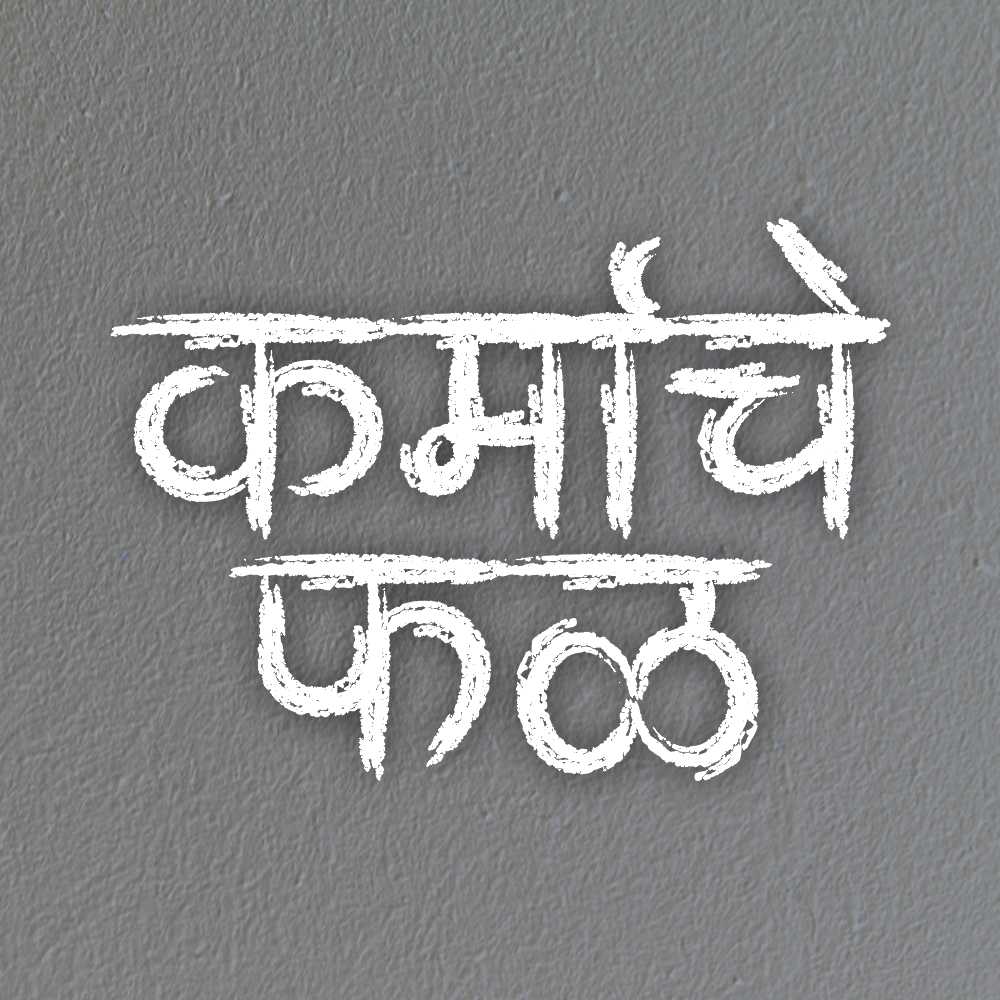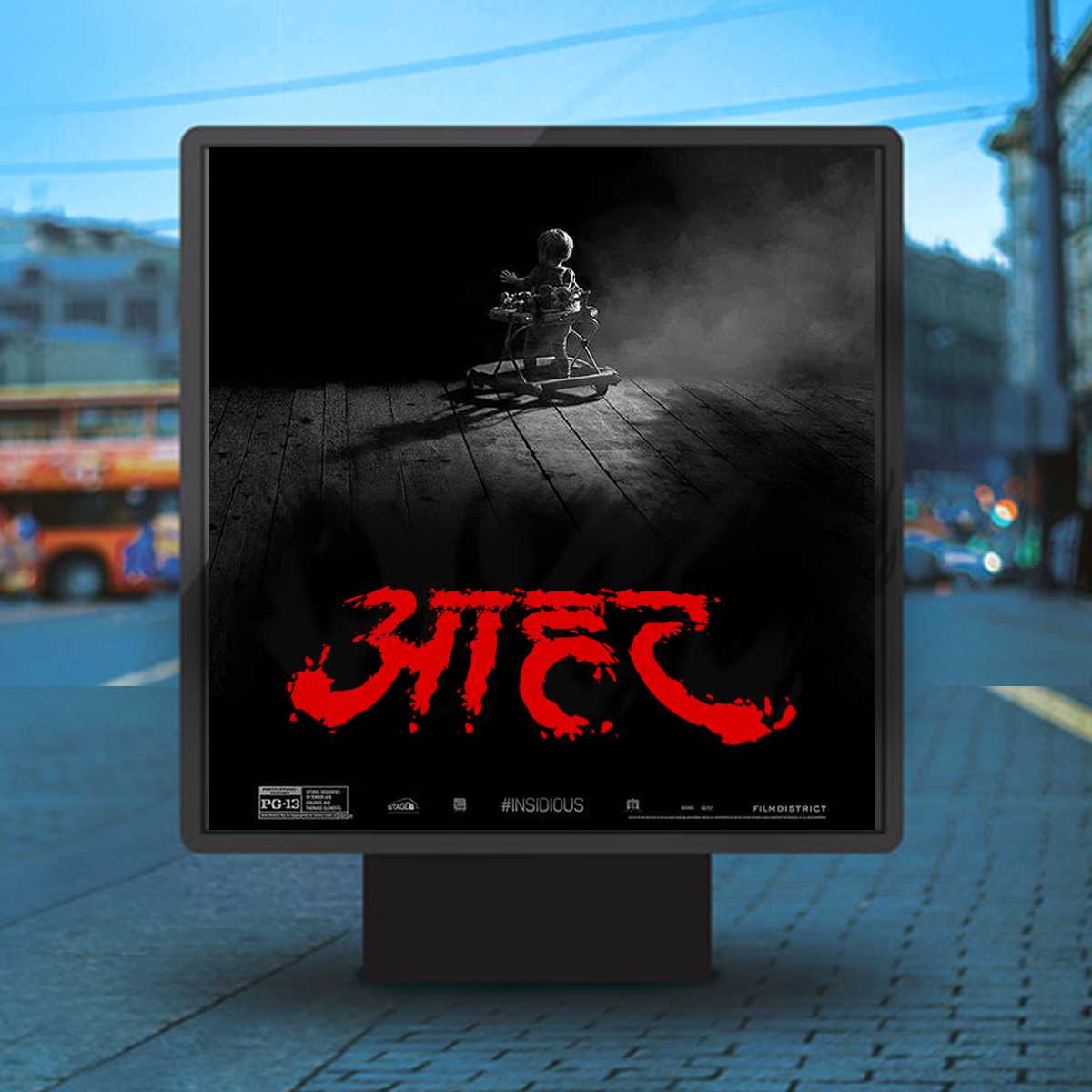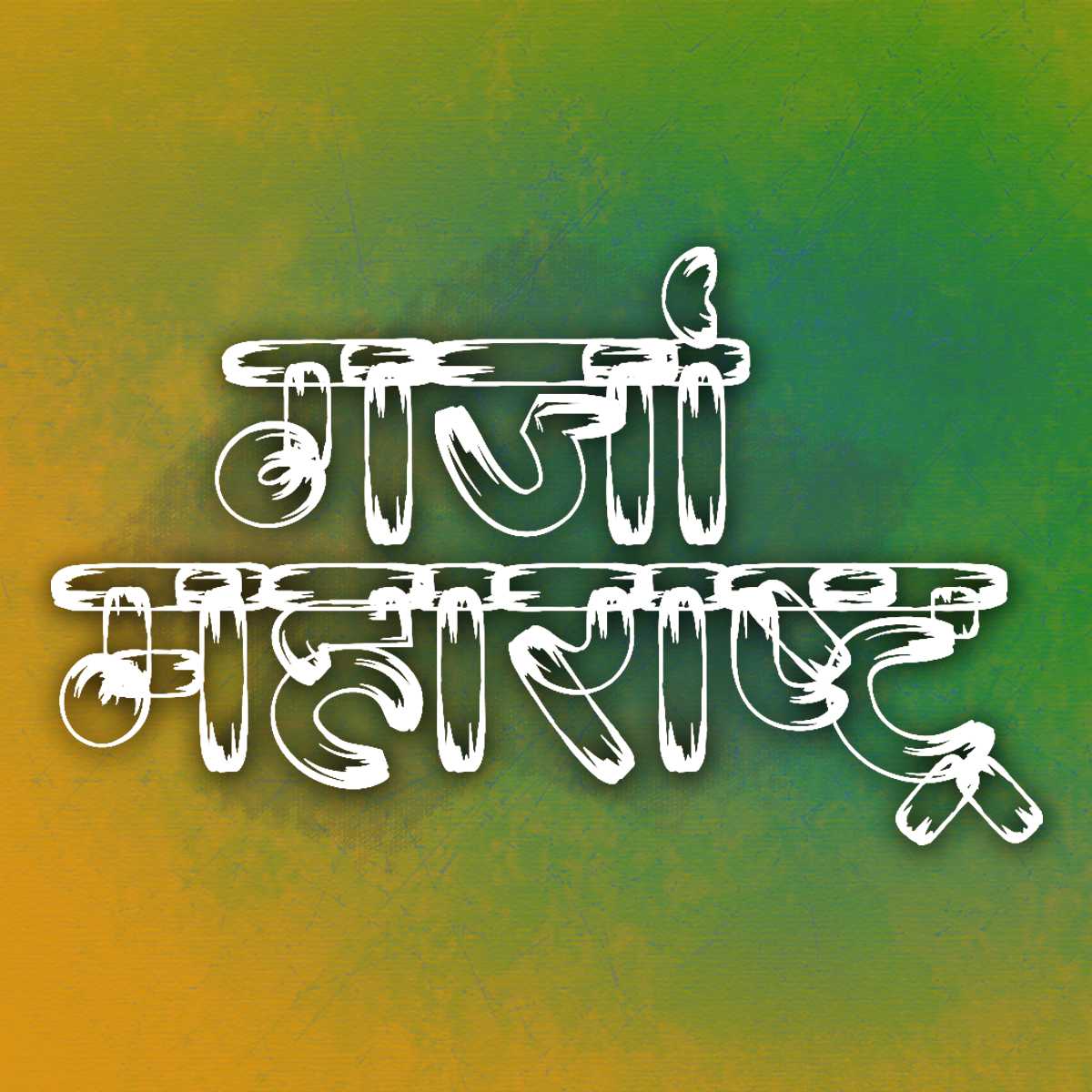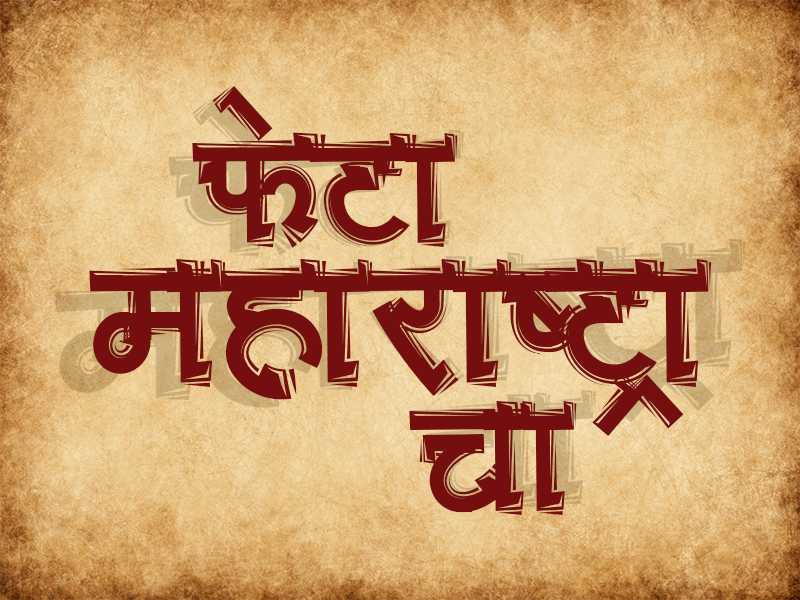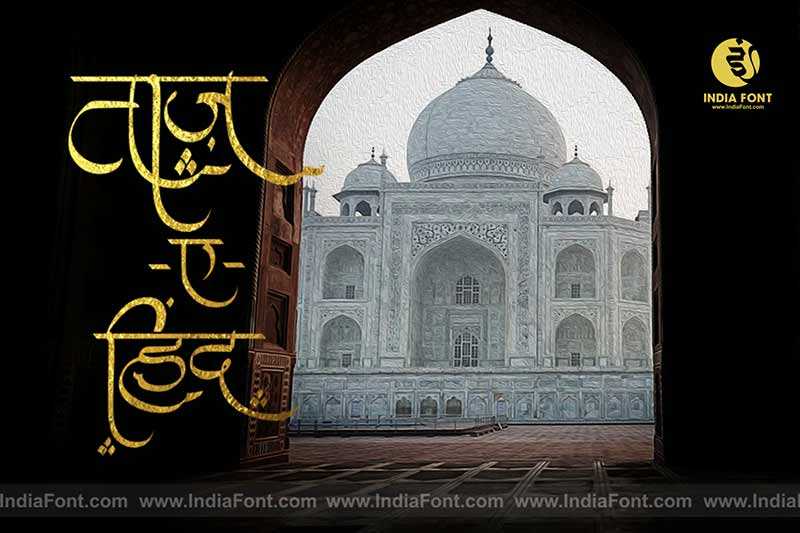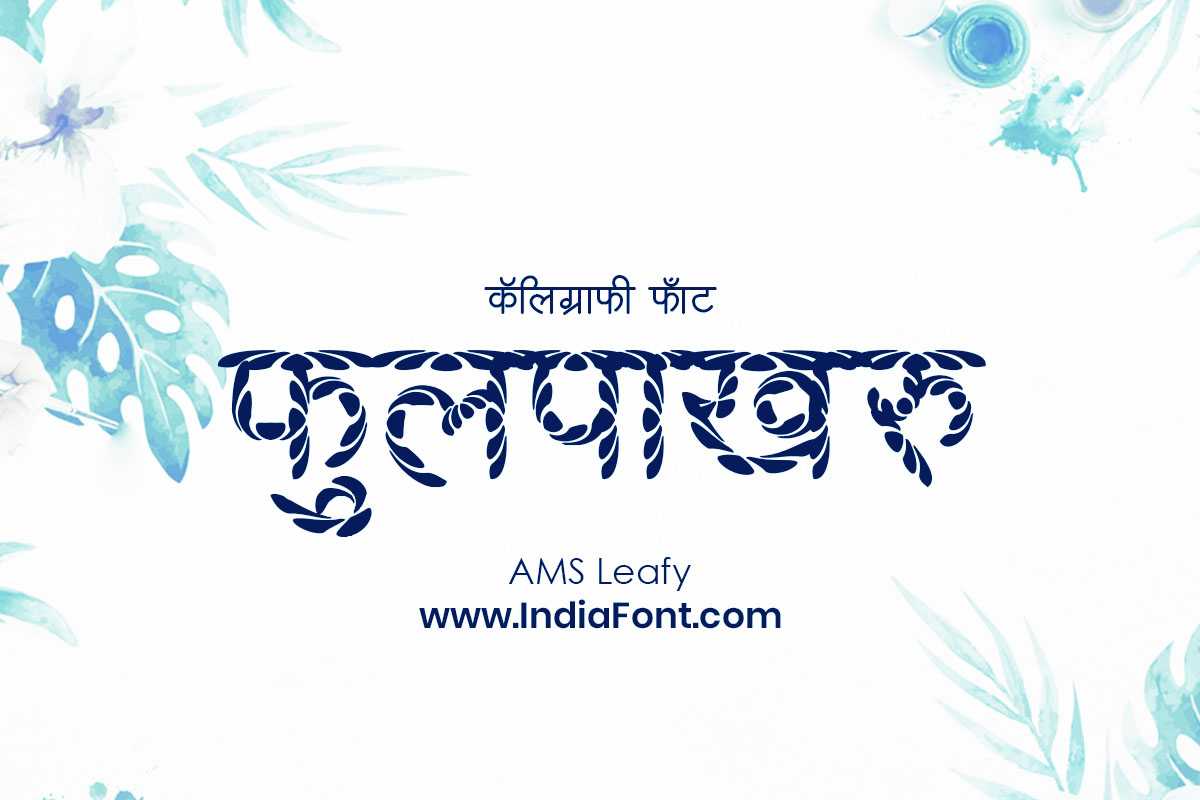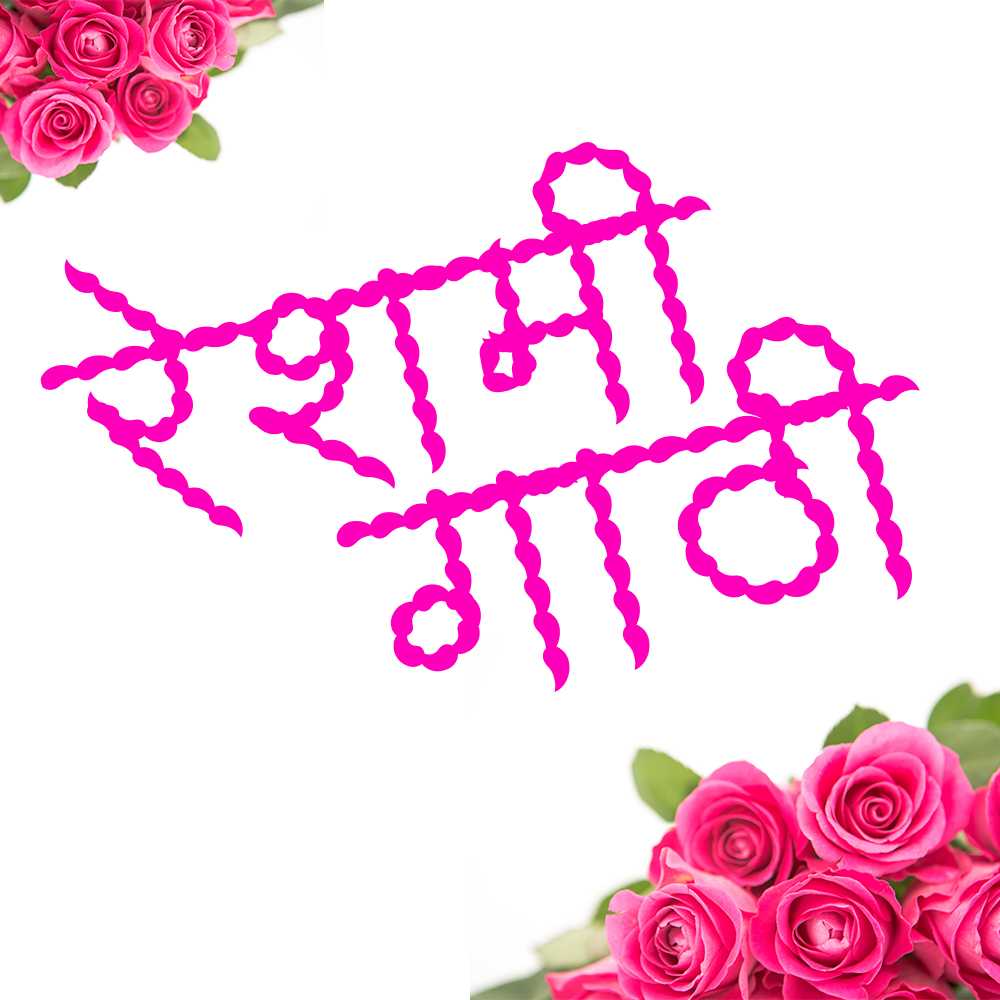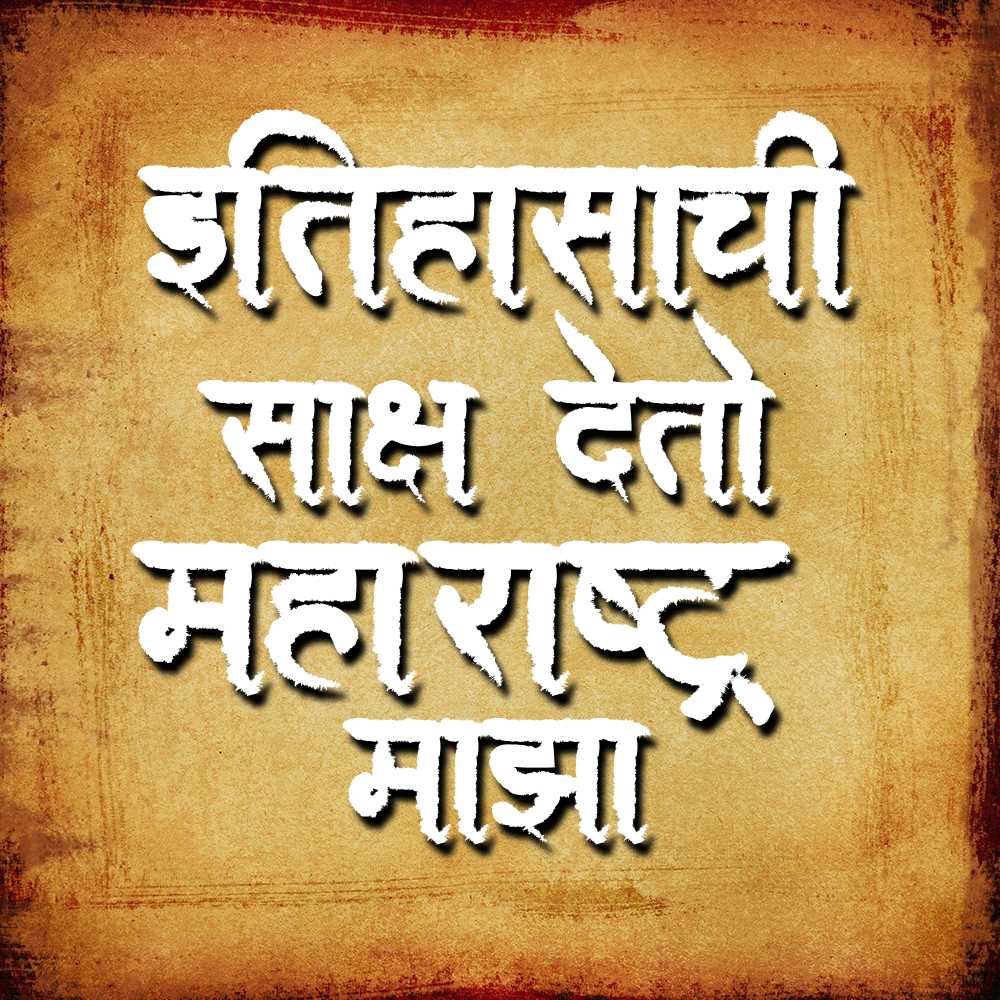
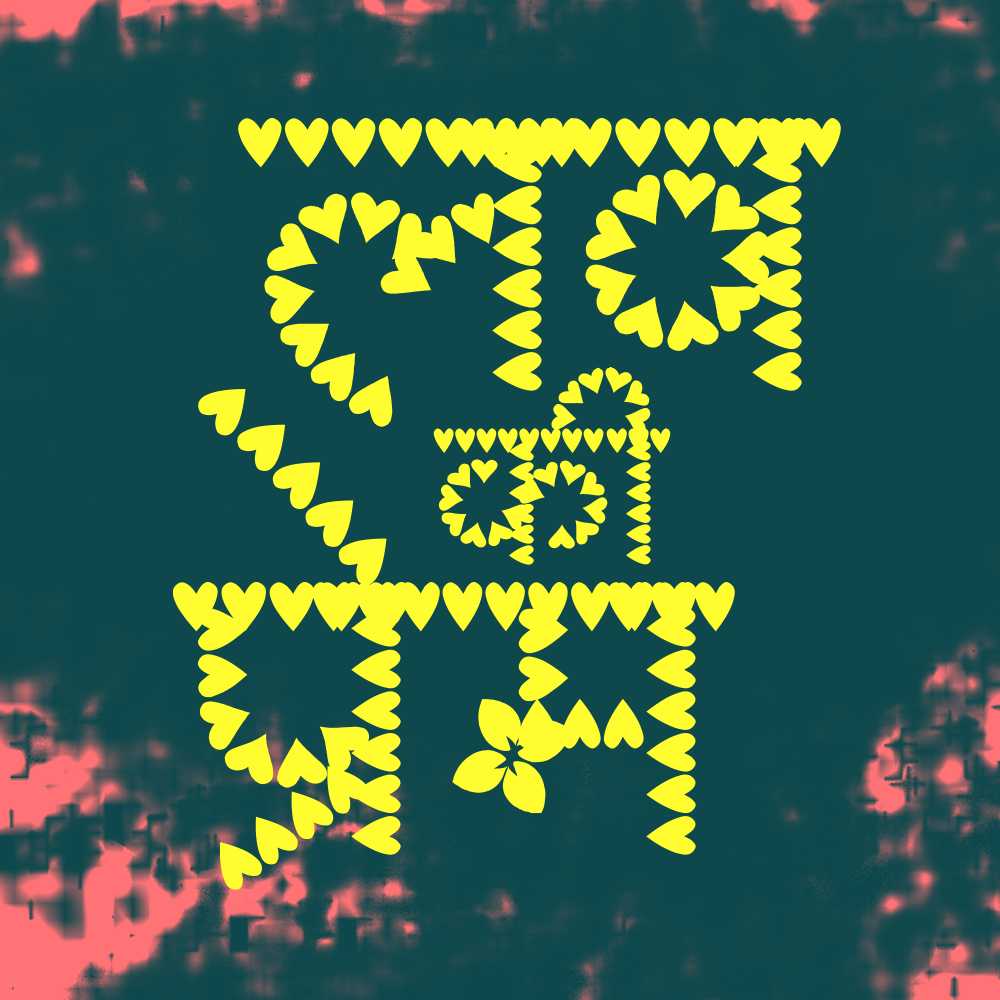
AMS Leafy 3
Bring the beauty of nature into your designs with AMS Leafy 3, a decorative font that captures the essence of organic charm. Whether you're searching for free AMS fonts, specifically looking for AMS Leafy font download options, or exploring AMS decorative fonts, AMS Leafy 3 adds a touch of natural elegance to your projects.
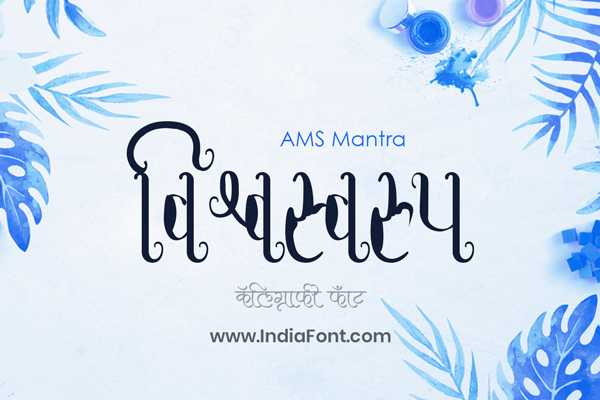
AMS Mantra
Discover the spiritual essence of AMS Mantra, a decorative font that embodies the sacred beauty of traditional typography. Perfect for designers seeking meaningful Hindi fonts, decorative fonts with cultural depth, or fonts that bring spiritual elegance to your creative projects.
AMS Aakul 1
Explore AMS Aakul 1: distinctive decorative Devanagari font perfect for creative headings, artistic projects, and traditional designs. Master typography techniques, discover design applications, and create stunning visual content with this elegant Hindi and Marathi font.
AMS Aakul 2
Master AMS Aakul 2: refined decorative Devanagari font with enhanced boldness for impactful headlines, premium branding, and contemporary design projects. Discover advanced typography techniques and creative applications for this sophisticated Hindi and Marathi font.
AMS Aakul 3
Building upon the success of AMS Aakul 1 and AMS Aakul 2, AMS Aakul 3 brings a fresh perspective to Devanagari script. Its harmonious blend of traditional elements and contemporary aesthetics results in a typeface that exudes sophistication and versatility.
AMS Aakul 4
AMS Aakul 4 is a font that embodies the beauty and complexity of Devanagari script, empowering your designs to make a lasting impact. Download AMS Aakul 4 and embark on a new chapter of typographic excellence in your creative journey.
AMS Aakul 5
AMS Aakul 5 empowers your designs to stand out from the crowd. Whether you're working on posters, packaging, or digital graphics, this font adds a contemporary edge that captures attention and leaves a lasting impression.
AMS Aakul 6
AMS Aakul 6 is a mesmerizing decorative font that brings a touch of artistic sophistication to your designs. With its intricate details and ornate flourishes, this font captures attention and adds a touch of elegance to any project.
AMS Aakul 7
AMS Aakul 7 is a mesmerizing decorative font that brings a touch of artistic sophistication to your designs. With its intricate details and ornate flourishes, this font captures attention and adds a touch of elegance to any project.
AMS Aakul 8
AMS Aakul 8 is a modern and versatile Devanagari font that combines elegance with functionality. With its free lines and balanced proportions, this typeface is perfect for a wide range of design projects.
AMS Afrin
AMS Afrin is a meticulously designed font specifically tailored for Hindi and Marathi publications. With its clean and professional look, this font is the perfect choice for books, magazines, newspapers, and other printed materials.
AMS Bindu Rekha 1
AMS Bindu Rekha 1 is a unique decorative font that showcases an enchanting dotted line design. With its creative and captivating letterforms, this font adds a touch of intrigue and visual interest to your Hindi and Marathi designs.